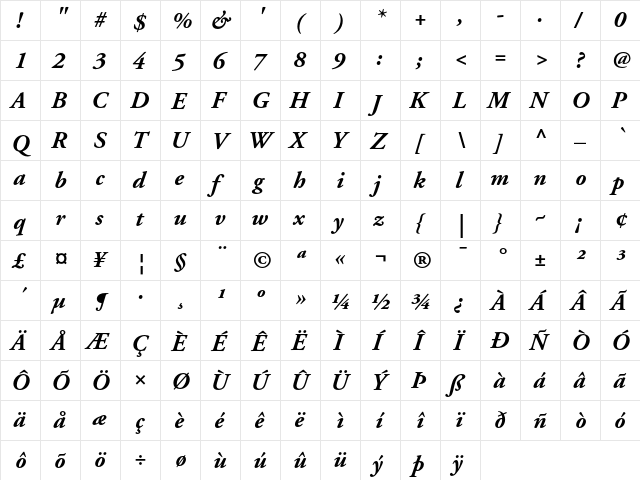
Adobe Garamond Bold Italic Font Preview
Design Context for Adobe Garamond Typeface
Adobe Garamond takes a measured approach to typography — its balanced proportions and neutral character make it a reliable workhorse for both digital and print work. The dynamic lean of this cut emphasises speed and emphasis in any layout. The heavy weight commands attention and anchors typographic hierarchies.
Pro Tip: Try Adobe Garamond for annotation and caption copy alongside an upright companion — the contrast in angle creates a dynamic but ordered typographic system.